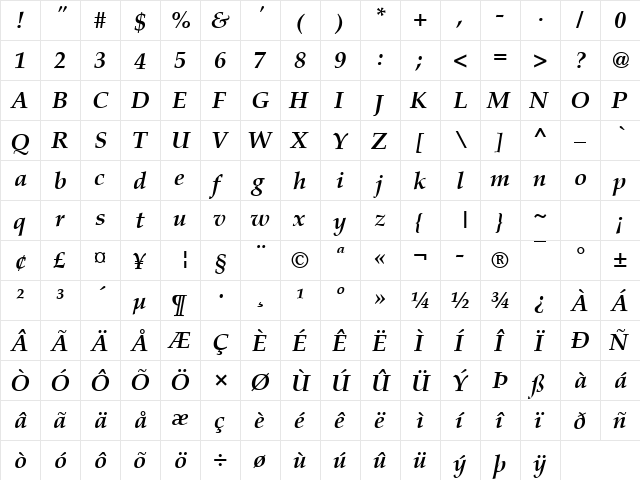
P052L Bold Italic
Design Context for P052L Typeface
P052L takes a measured approach to typography — its balanced proportions and neutral character make it a reliable workhorse for both digital and print work. Its italic angle brings a sense of urgency and motion to the letterforms. The heavy weight commands attention and anchors typographic hierarchies.
Pro Tip: Use P052L for emphasis, pull quotes, and subheadings where its slanted energy can add rhythm to the layout.